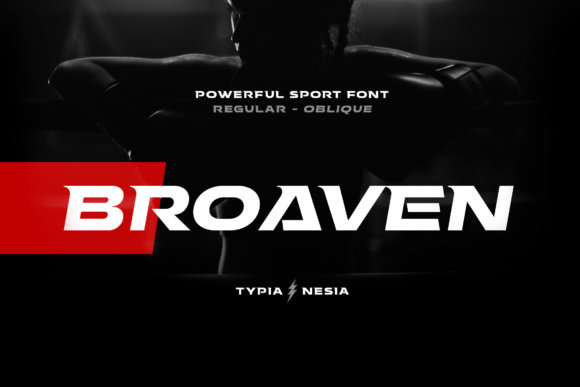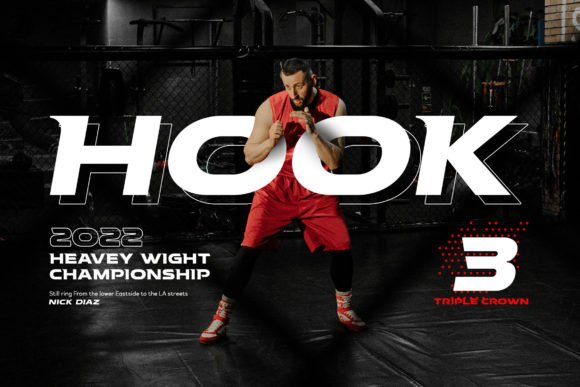
Broaven Font
Broaven – Bold Expanded Slab Serif Font – Racing Sport Game SLab Serif – Logo and branding Tech Font
Broaven is perfect for your upcoming projects such as logo branding, editorial design, e-sport design, Fitness Gym Branding, game/gaming industry, sports racing, supercar brand, e-sport branding, music poster, website design, modern advertising design, poster quote, book/cover title, special events and any more.